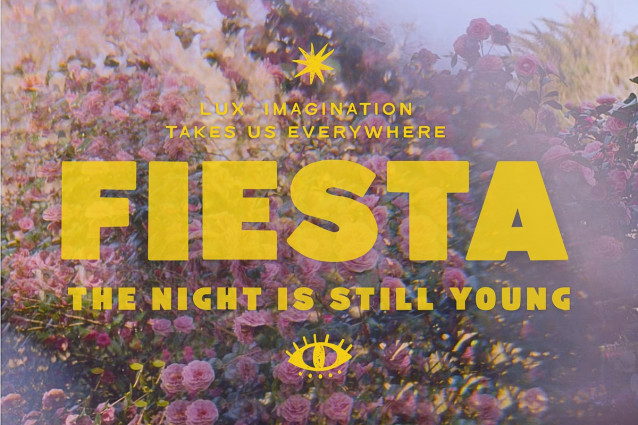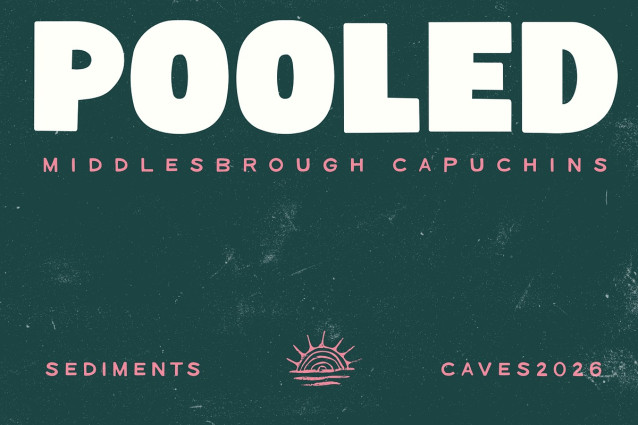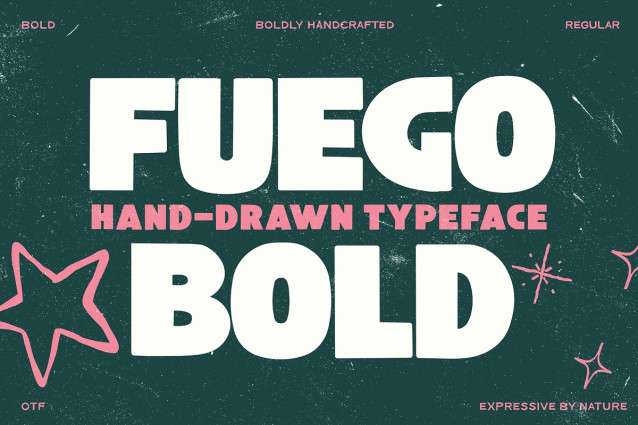
Fuego block Font
Fuego block Font is a bold display font inspired by vintage beach signage, retro café graphics, and handcrafted folk aesthetics. Featuring thick letterforms, soft corners, and a strong visual presence, this typeface is designed to create eye-catching headlines with a warm and playful personality. Its chunky structure works perfectly for branding, posters, packaging, coffee shops, organic products, surf-themed designs, menus, and editorial layouts. The handcrafted feel adds an authentic and nostalgic touch while maintaining excellent readability. Boldfolk pairs beautifully with textured backgrounds, hand-drawn illustrations, and vibrant color palettes, making it an ideal choice for designers seeking expressive typography with a relaxed retro spirit.